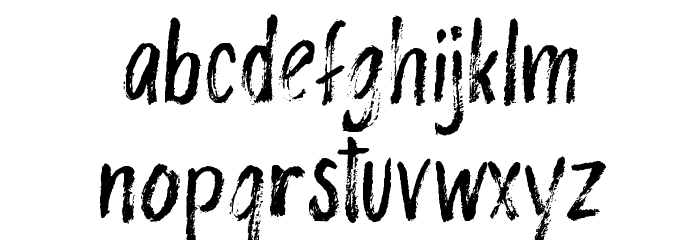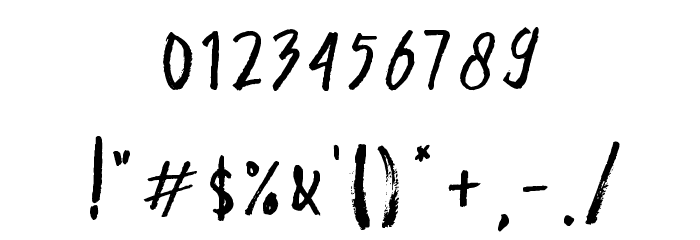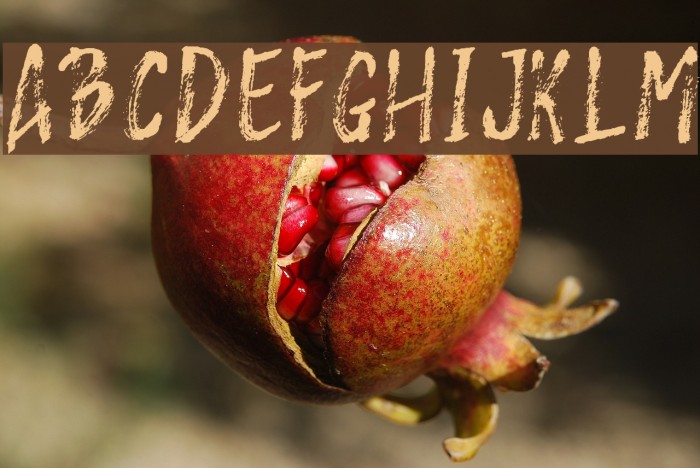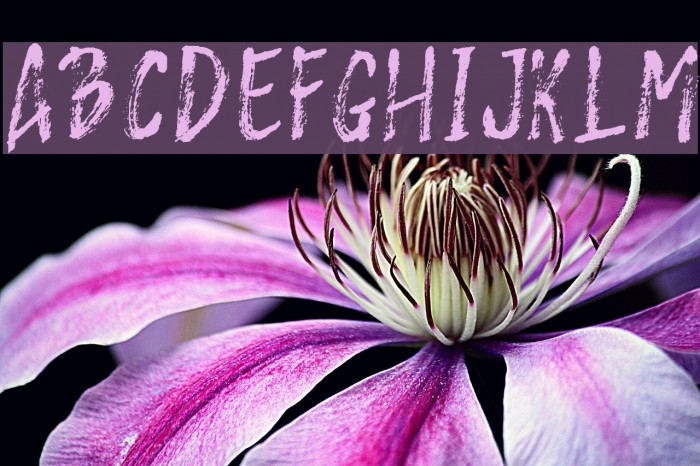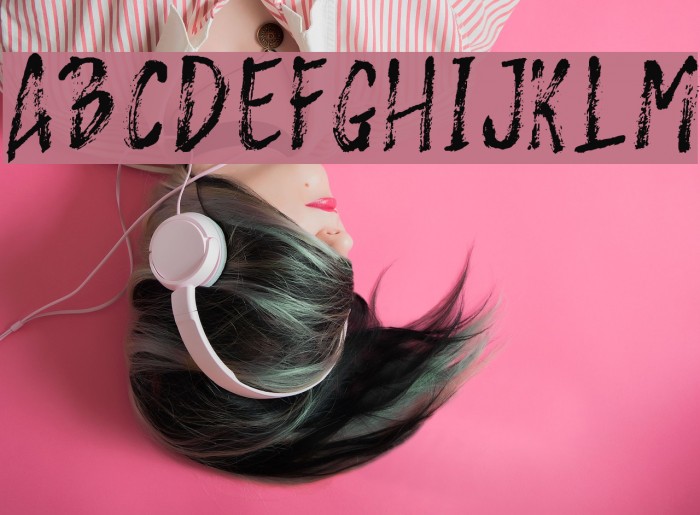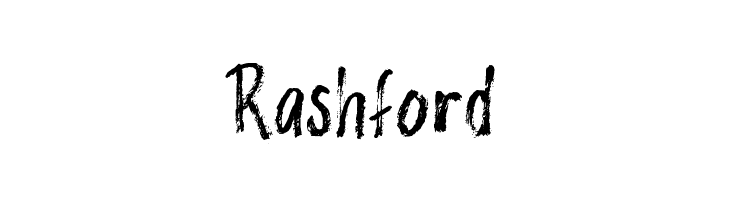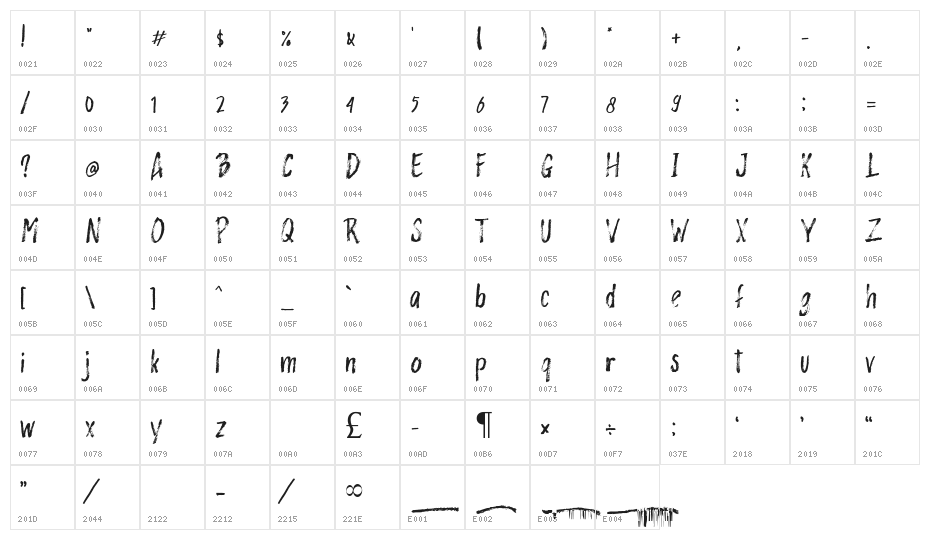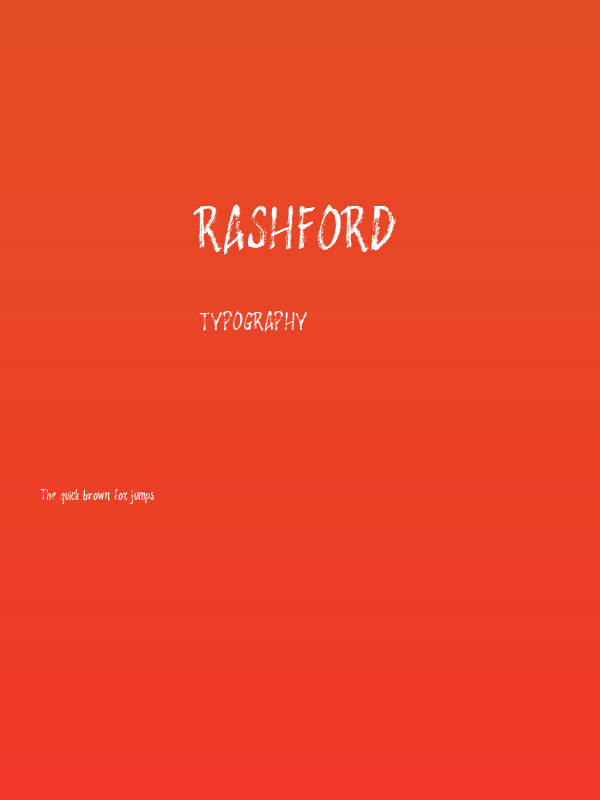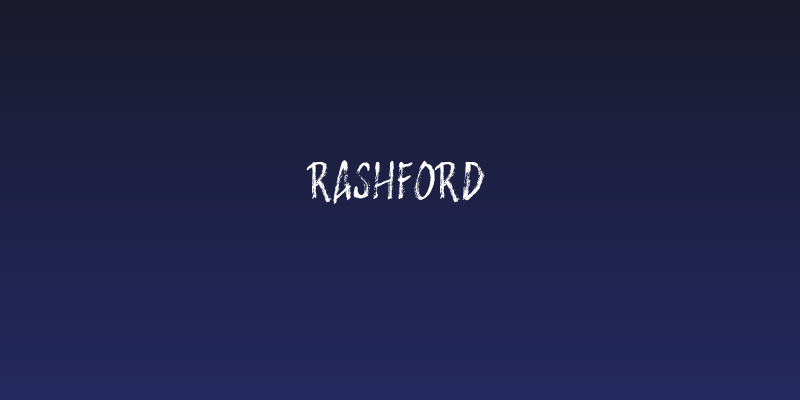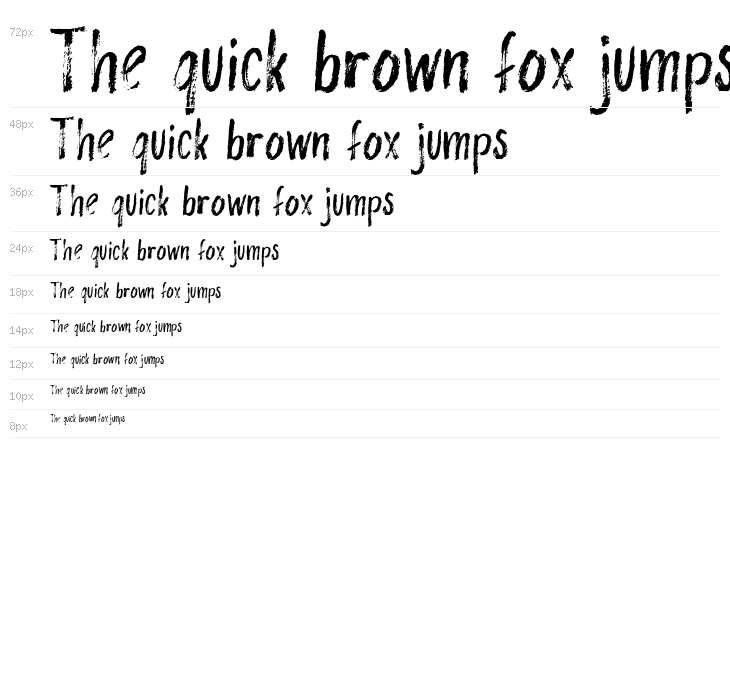
Rashford Font
This font features a bold, textured appearance with a hand-painted style, reminiscent of brush strokes. The characters have an uneven, organic look, giving them a dynamic and expressive quality. The uppercase and lowercase letters maintain a consistent style, with slightly varying widths and heights, adding to the font's artistic flair. Numbers and special characters are also included, each maintaining the same textured, brush-like quality. The overall design is both striking and versatile, suitable for projects that require a creative and bold statement.
A bold, textured brush-style font with an expressive, hand-painted look.
- Proposed Projects: Ideal for artistic posters, creative branding, album covers, and event invitations.
- Overall Style: Modern, Artistic